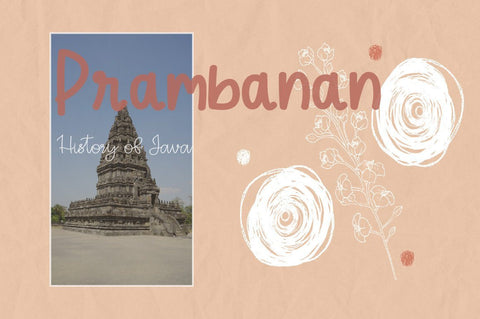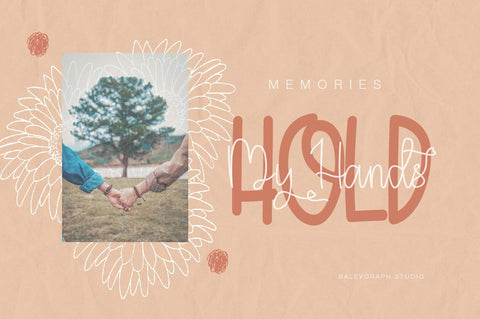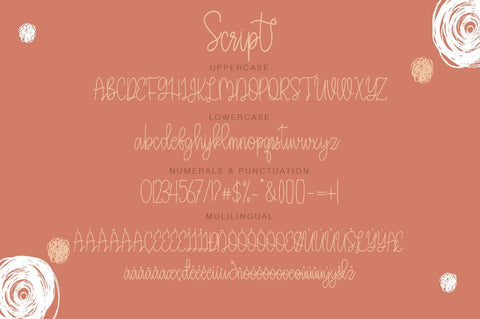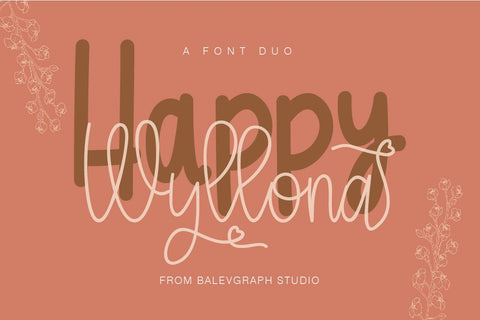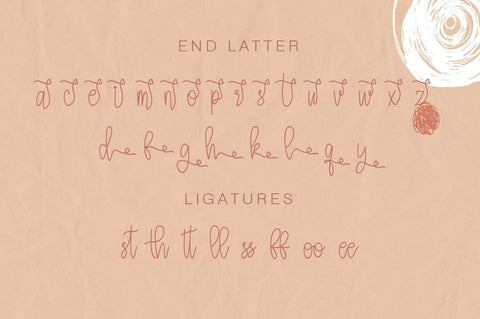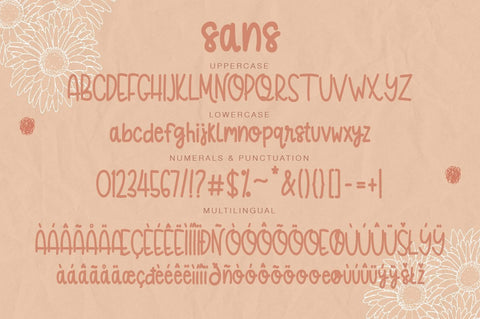
Wyllona - Font Duo
Wyllona is a font duo, a combination of sans and script typefaces.
- Tone of glyphs (include Uppercase, Lowercase, Numerals & Punctuations, Stylistic Set, Ligature, Multilingual)